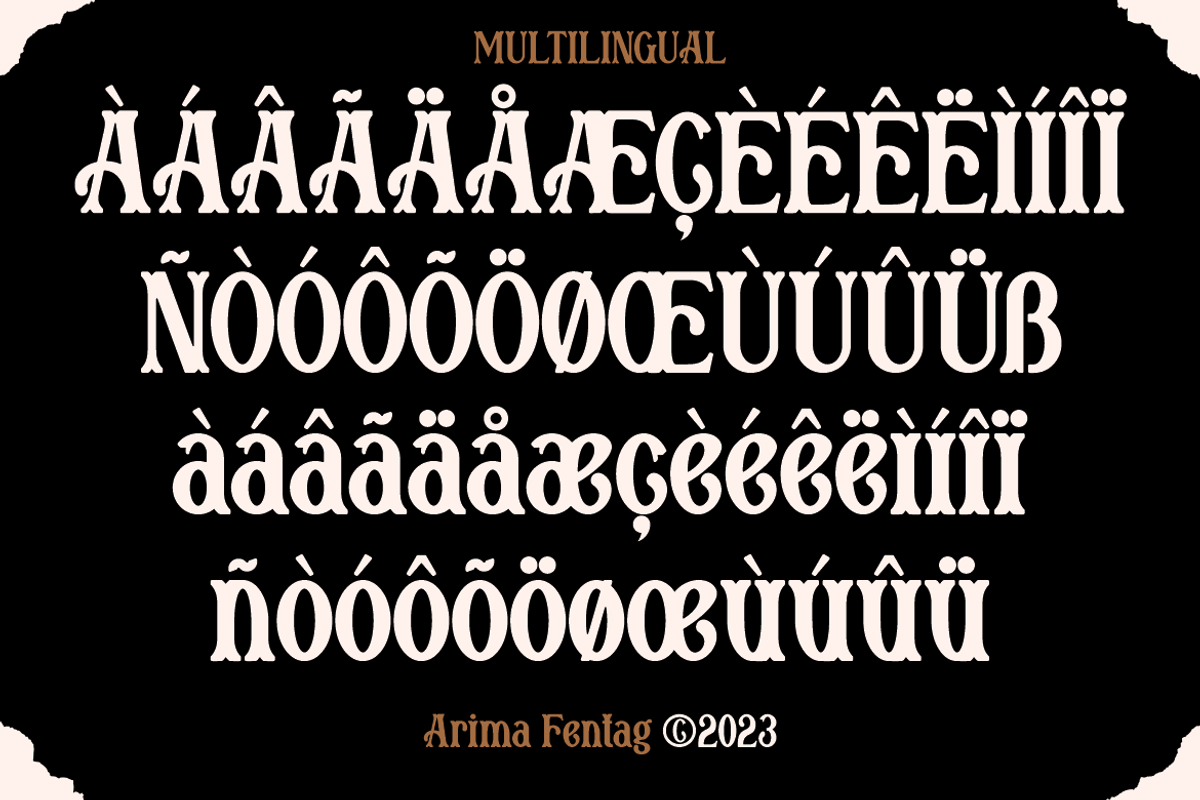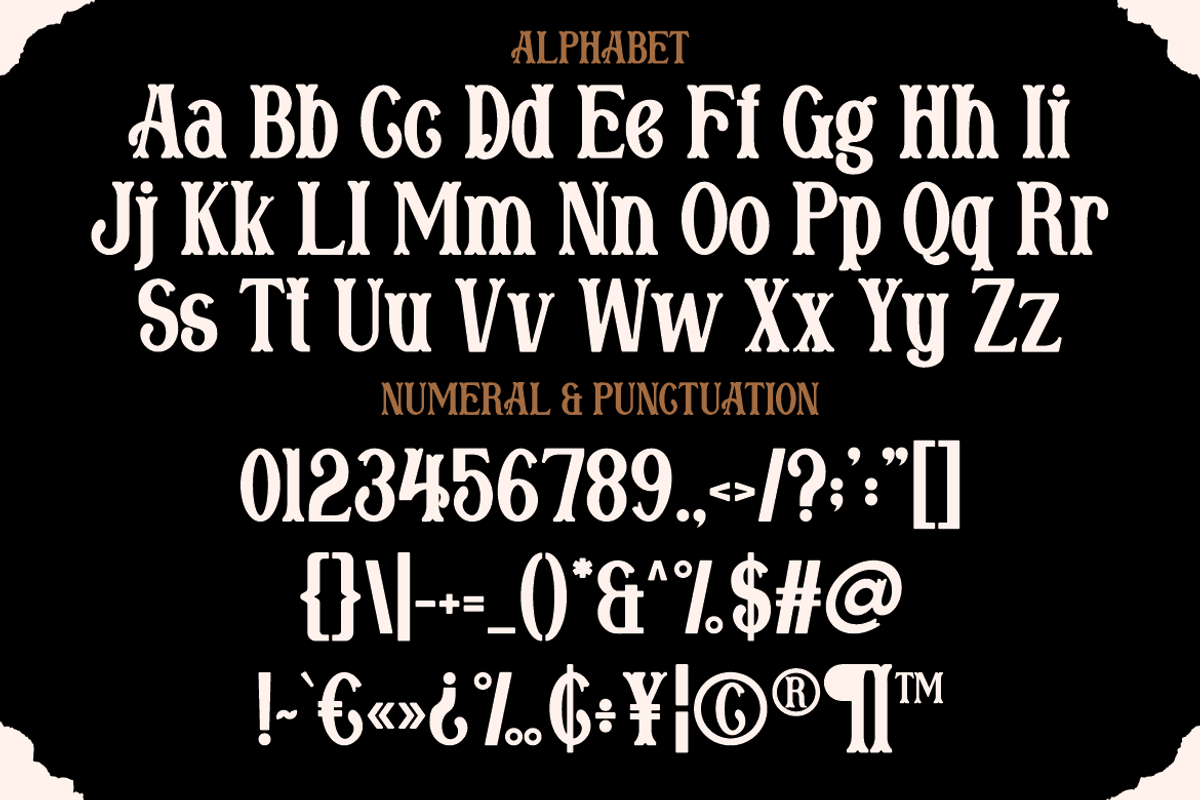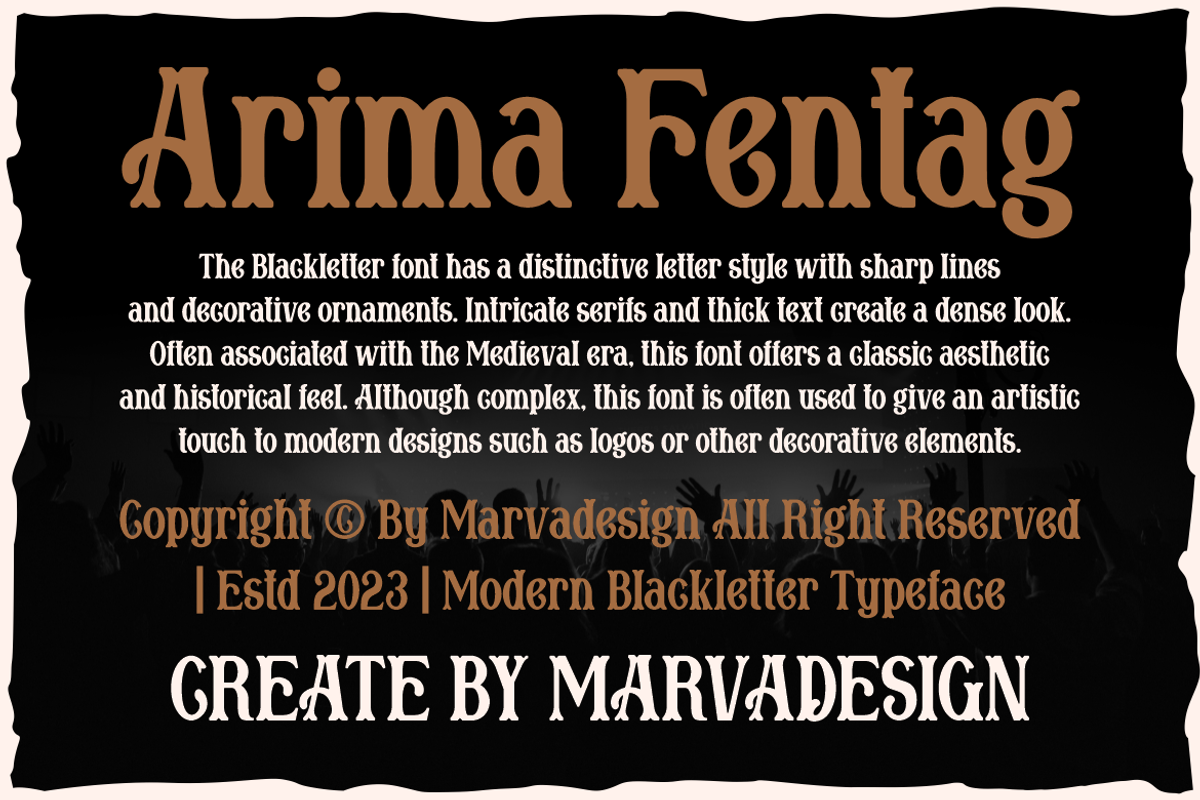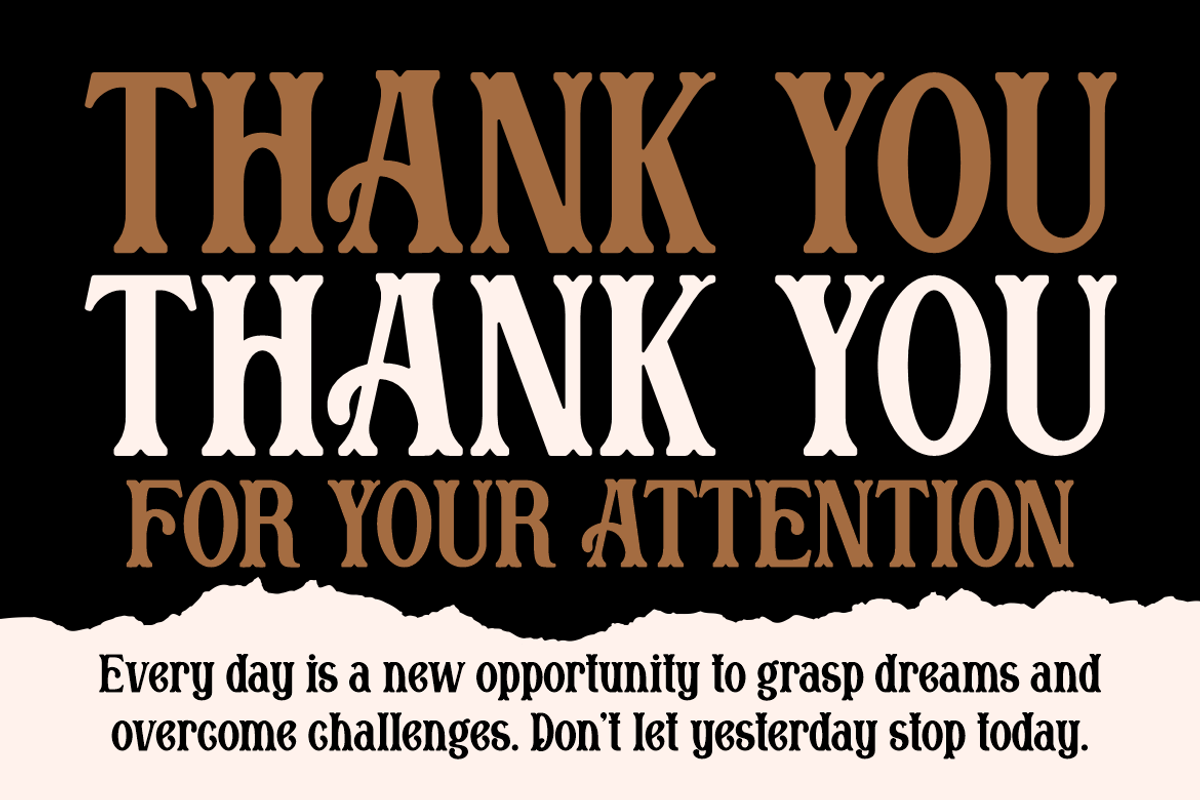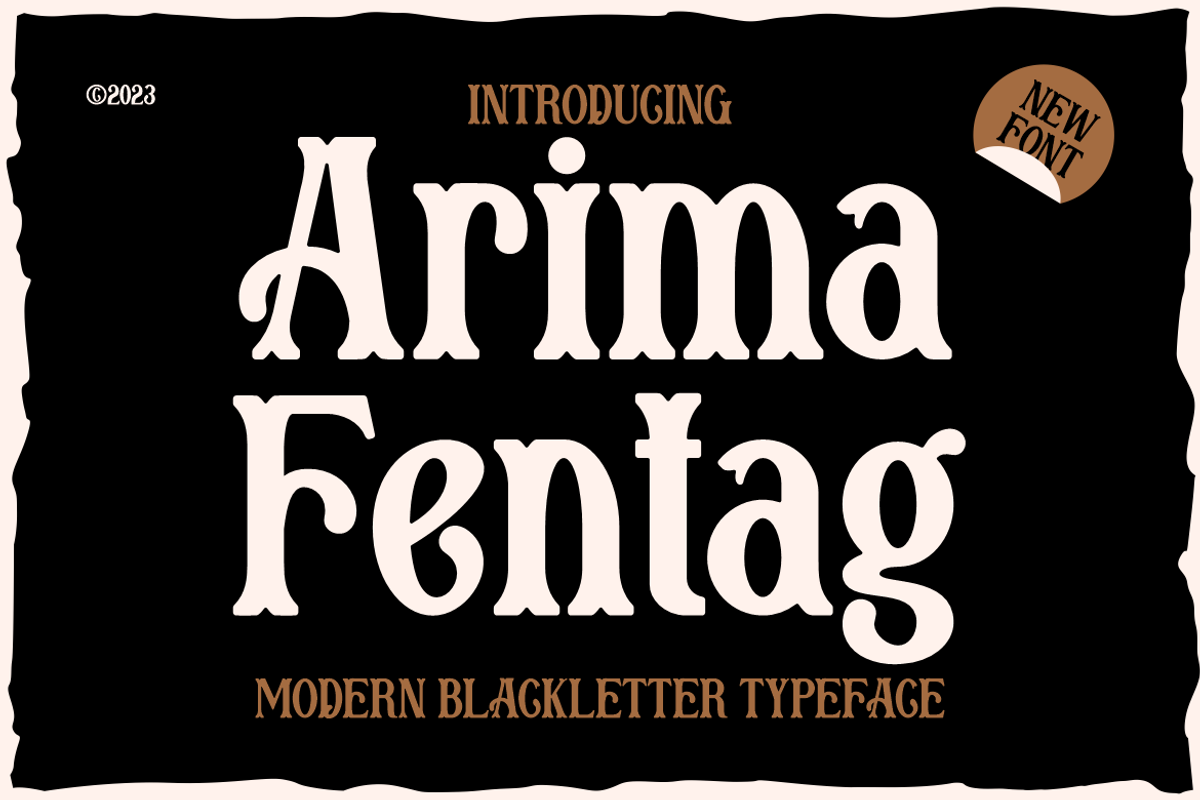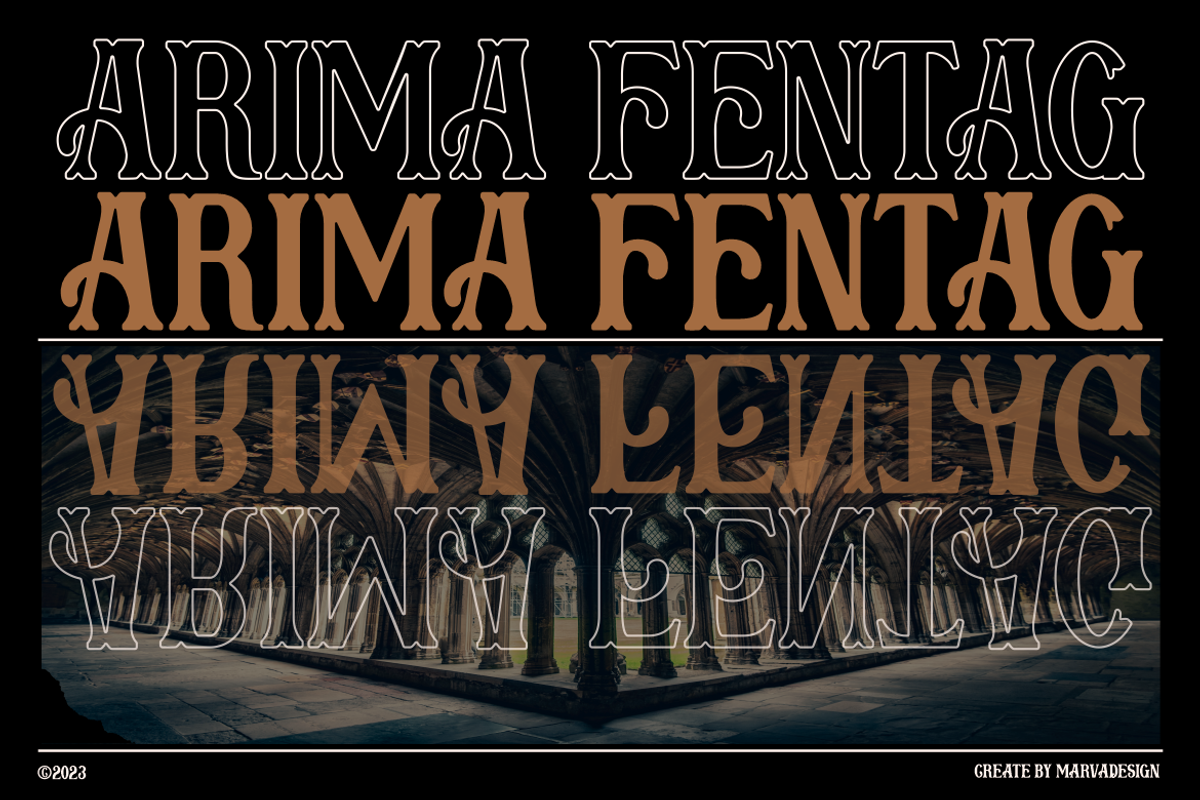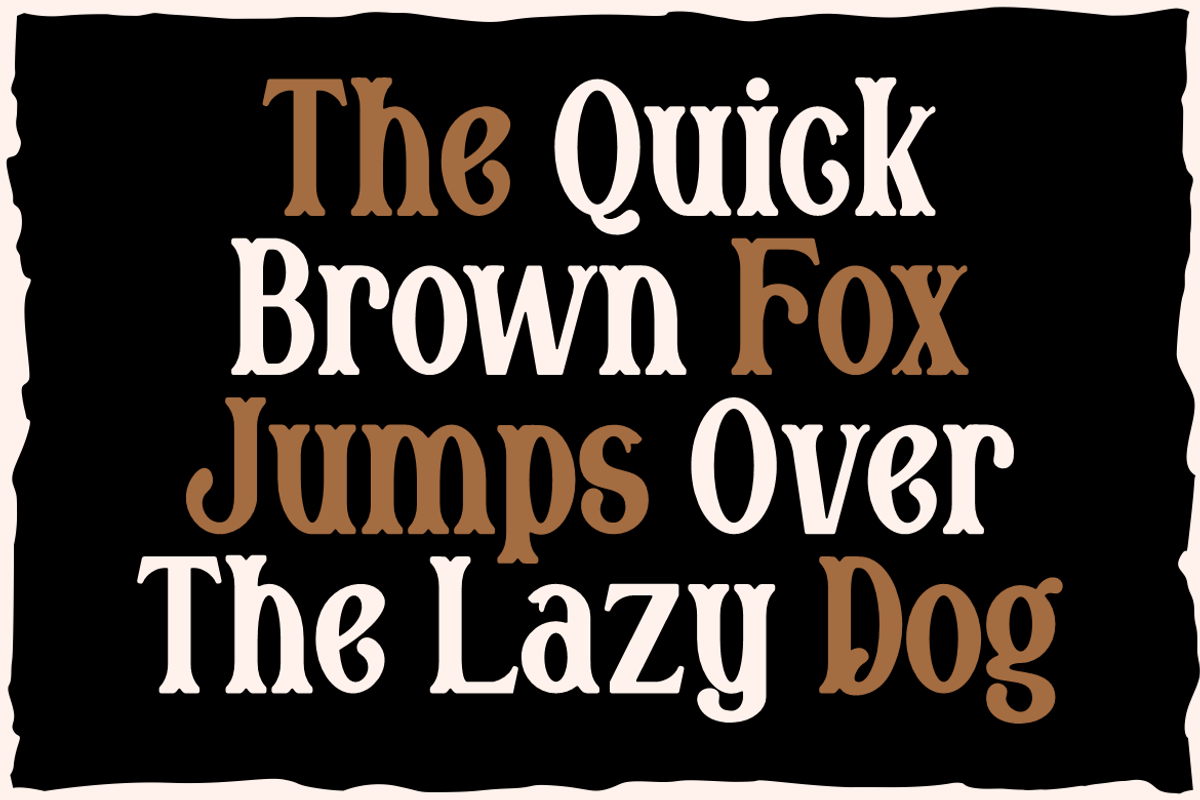
Arima Fentag - Old Decorative
Introducing our new product Arima Fentag Font - Old Decorative Font authentic display font. The font is suitable for any branding project like logo, Template Design, Product and many more. outstanding in a wide range of contexts.